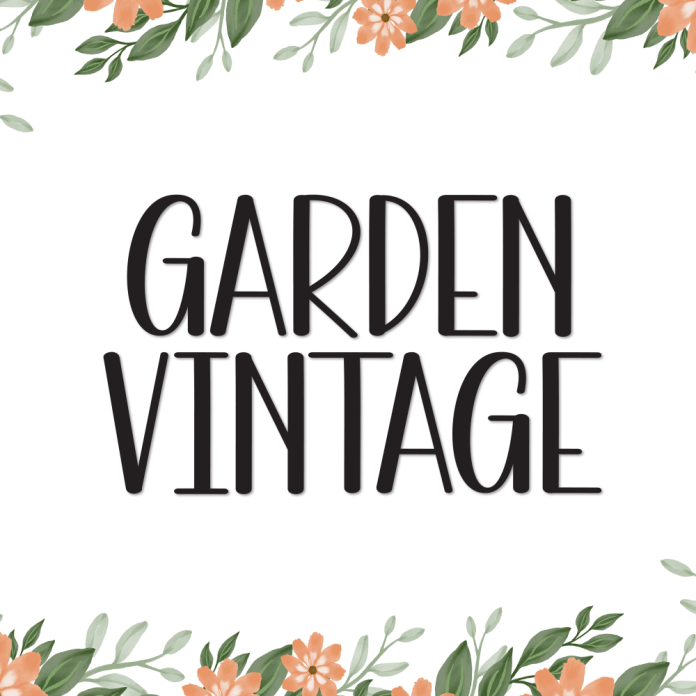
Garden Vintage is a beautifully crafted display font that blends floral charm with vintage elegance. Its graceful letterforms and classic flair make it perfect for projects that need a touch of romance and old-world sophistication.
Whether you're designing wedding invitations, boutique branding, product packaging, or vintage-themed posters, Garden Vintage will bring an exquisite and nostalgic character to your work.
Elegant vintage-inspired display style
Ideal for weddings, labels, branding, and decor
Let your designs bloom with the timeless beauty of Garden Vintage — a display font that speaks with charm and grace.